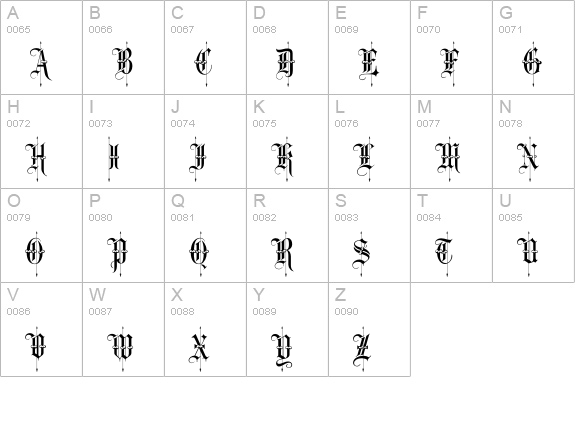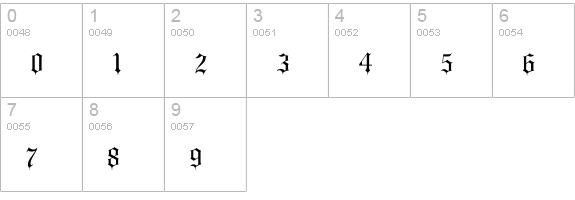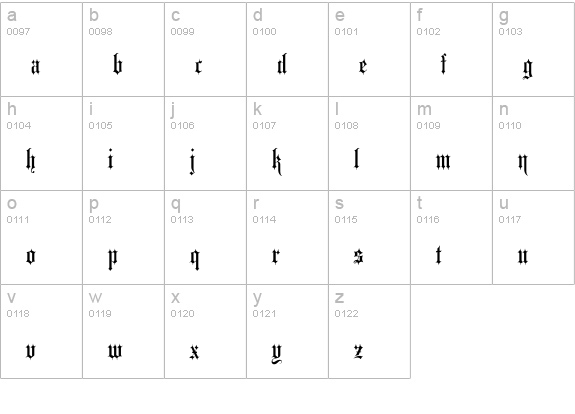
Showcard Font Details
Showcard font is a captivating and eye-catching typeface that is sure to make a lasting impression. With its bold and dynamic appearance, this font is perfect for any design project that requires a touch of elegance and flair. Whether you're creating a poster, an advertisement, or a logo, Showcard font will elevate your work to new heights. What sets Showcard font apart is not only its striking aesthetics but also the fact that it is available for free. That's right, you can easily download this remarkable font without spending a dime. It's a fantastic opportunity to enhance your designs without breaking the bank. Thanks to its versatility, Showcard font can be used across a wide range of creative endeavors. Its clean lines and sharp edges make it ideal for both digital and print mediums. Whether you're designing for a website, a magazine, or a social media post, this font will ensure that your message stands out from the crowd. You can freely access and download Showcard font at FontsMarket.com. This reputable online platform offers a vast collection of high-quality fonts, and Showcard font is just one of the many gems you can discover there. With a simple click, you can add this font to your design arsenal and unlock a world of possibilities. So why wait? Take advantage of this incredible opportunity to enhance your designs with Showcard font. Download it for free at FontsMarket.com and let your creativity soar.